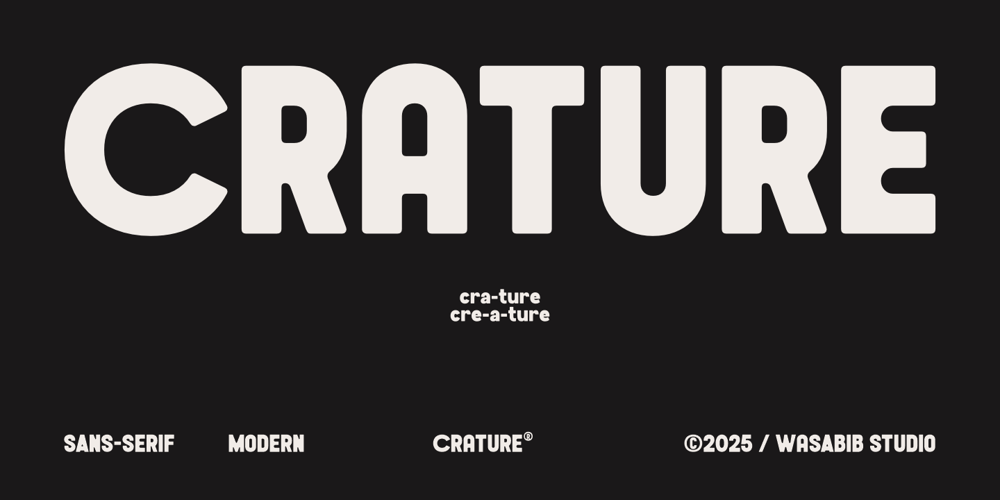
Crature
Crature font
Crature Font Family was designed by Miftahul Habib and published by Wasabib Type Foundry. Crature contains 2 styles and family package options. Crature is a modern sans-serif font known for its clean and minimalist design with the added feature of stylistic alternates. It features straight, simple lines and a contemporary feel, making it suitable for a wide range of design projects. The font’s versatility allows it to be used for various purposes, including branding, editorial design, web design, and more. With its sleek and elegant appearance, Crature is an excellent choice for those seeking a modern and sophisticated aesthetic in their typography. The inclusion of stylistic alternates enhances the font’s flexibility, giving designers more creative freedom to experiment and achieve their desired look.